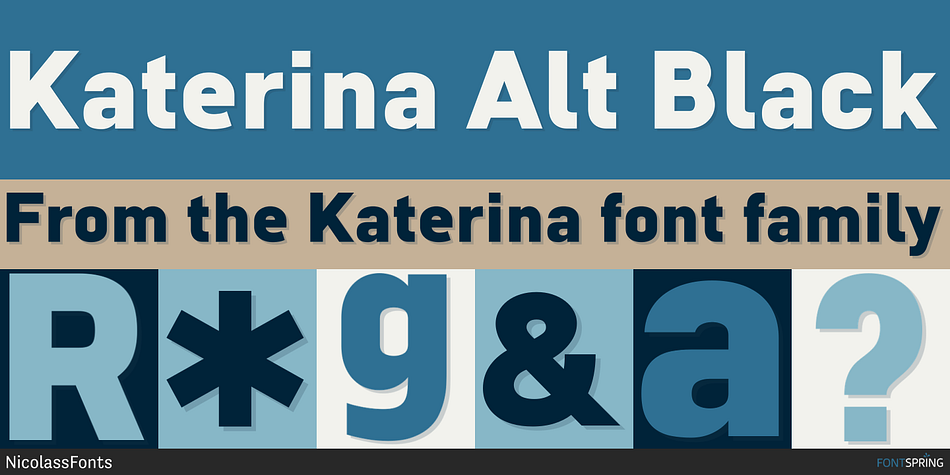
Katerina Alt Black
Designed by Nikolay Savchuk, Katerina is a sans serif font family. This typeface has twenty-four styles and was published by NicolassFonts.
Katerina is a modern versatile sans-serif typeface. What differentiates Katerina from the other fonts is an exceptionally distinctive design. It is brilliantly suited for graphic design and display use and perfect for logotypes, t-shirts, packaging, brand identity, books, magazines, newspapers, posters, billboards, and advertising.